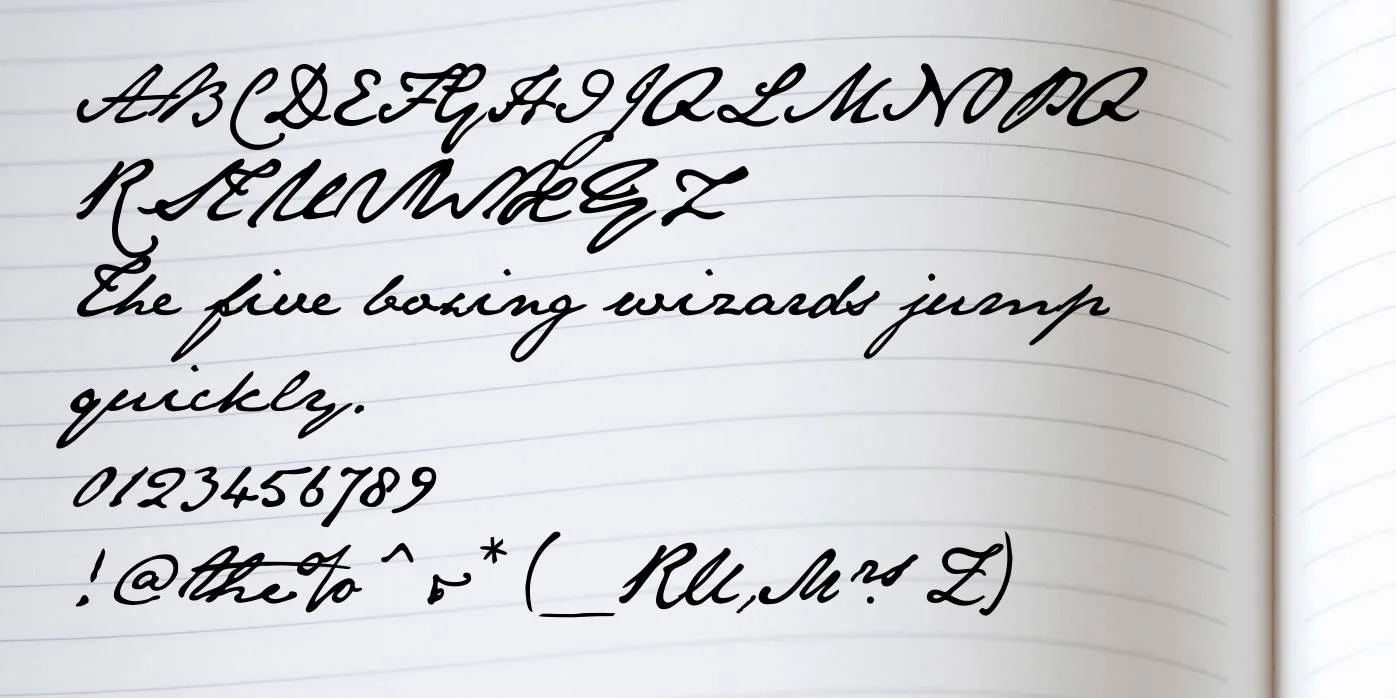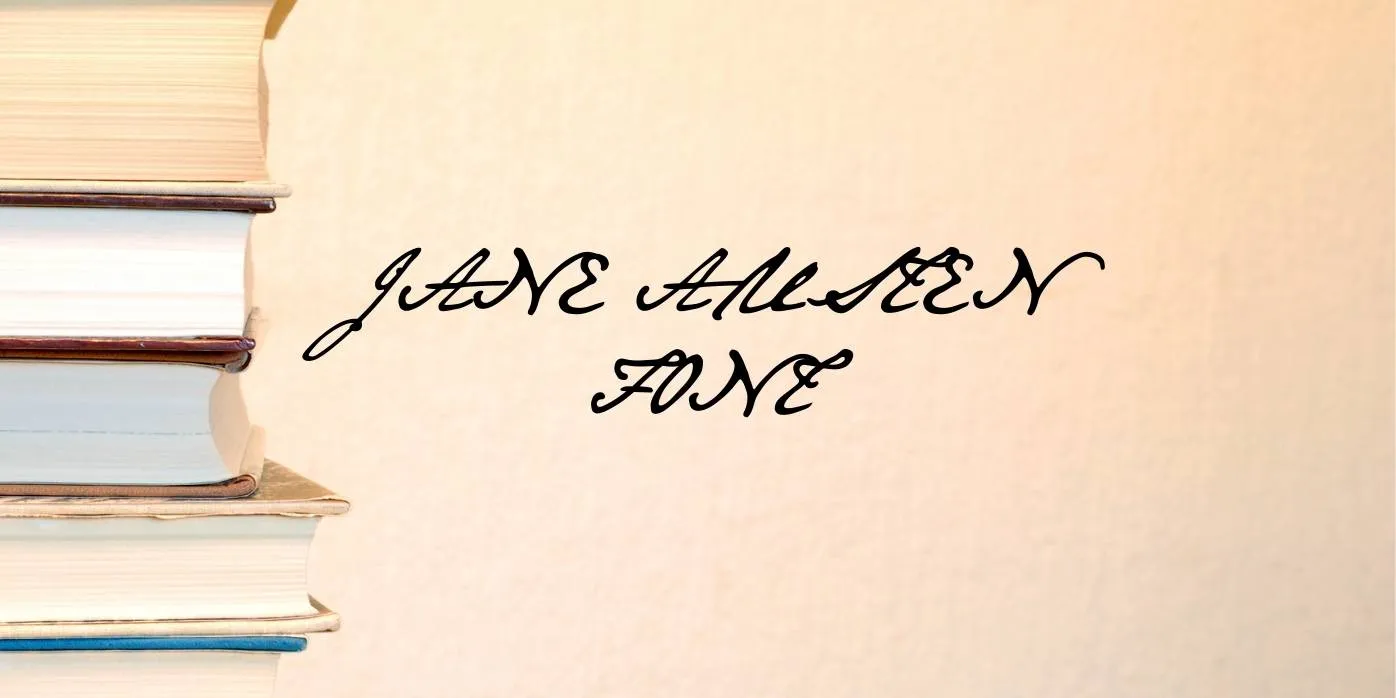
Jane Austen Font
Jane Austen Font is one of the beautiful Signature styles and lovely typefaces that belongs to a calligraphy typeface family. The designer of this exquisite font is Pia Frauss. The font is free for personal usage and has TTF features. The characters of this font give a lovely influence to your design projects.
It will give your design a lovely layout. It has many downloaders and users, it is evidence of its popularity. The font has a TrueType feature and has the ability to support a bunch of international languages. If we talk about its characters the font family includes Uppercase and lowercase letters, numbers and numerals, symbols, too many alternatives, and some other special characters also.
Its lovely characters provide an adorable result to your design projects.